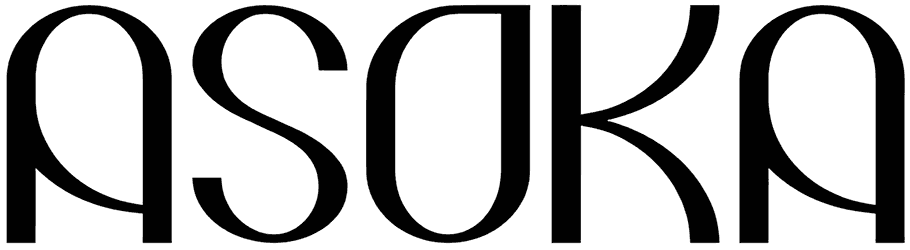
Rejova Font
Since you use a modern and elegant visual for your design, the final showcase will be captivating, and this unique sans serif font has this kind of mood. The Rejova font has a smooth and specific style that is going to give a stylish vibe to your words. There is no offer for lowercase letters and most punctuation marks, yet this fashion font will serve you as a nice adornment for a clothing boutique sign or whatnot.
Designed by: Robin Campistron